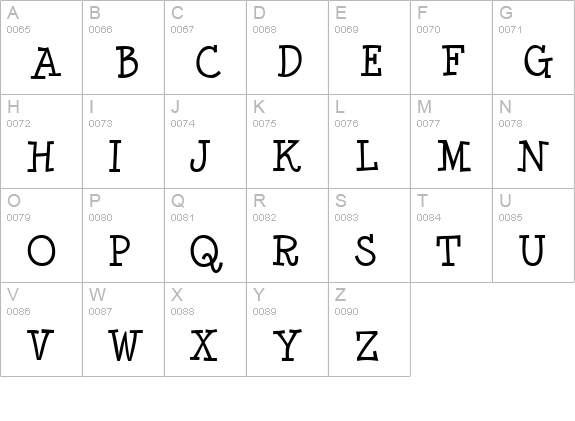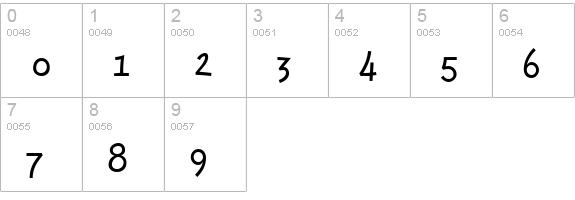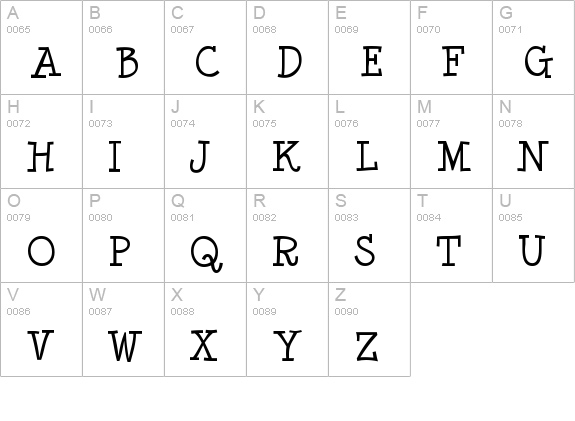
Introducing Minya Nouvelle font, a versatile and elegant typeface that exudes sophistication and charm. With its timeless design and classic appeal, Minya Nouvelle is the perfect choice for various design projects, from branding to editorial design. This font features a harmonious balance of traditional and modern elements, making it suitable for both print and digital applications. Its clean lines and smooth curves give it a refined and polished look that will elevate any design it is used in. Minya Nouvelle font is available for free download at FontsMarket.com, making it easily accessible for designers and creatives looking to add a touch of elegance to their projects. Whether you're designing a logo, creating a poster, or working on a website, Minya Nouvelle font is sure to make a statement and leave a lasting impression.